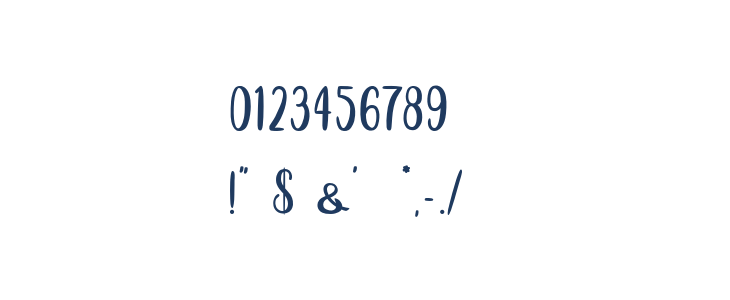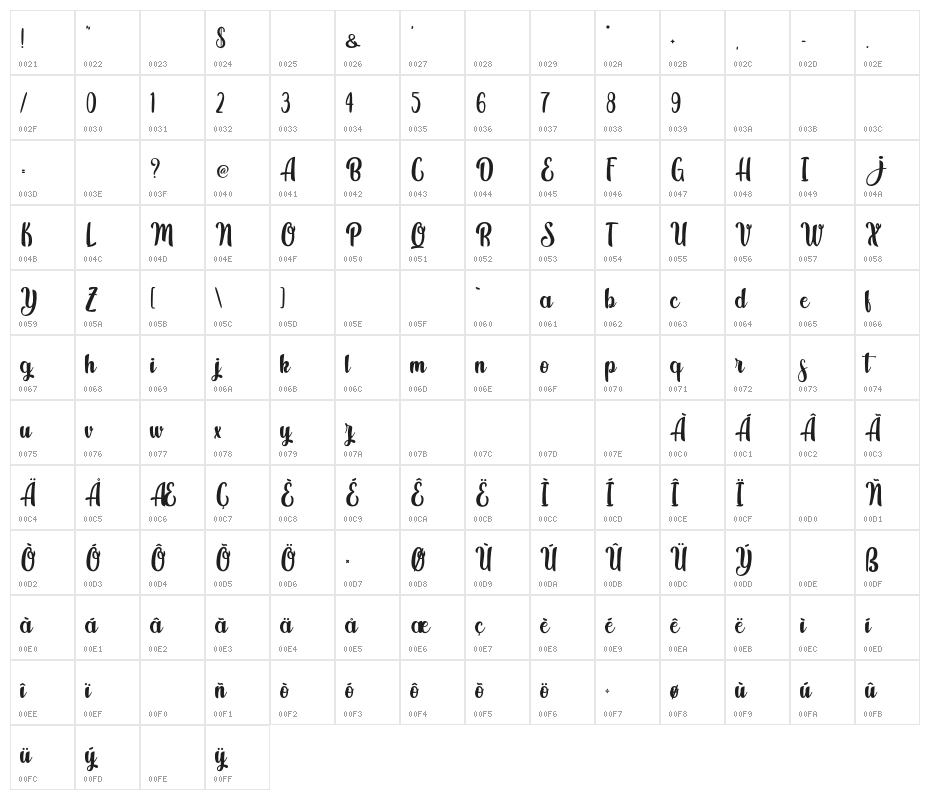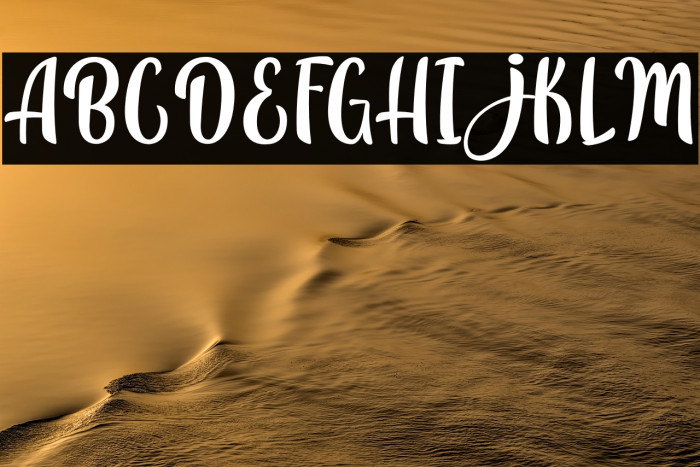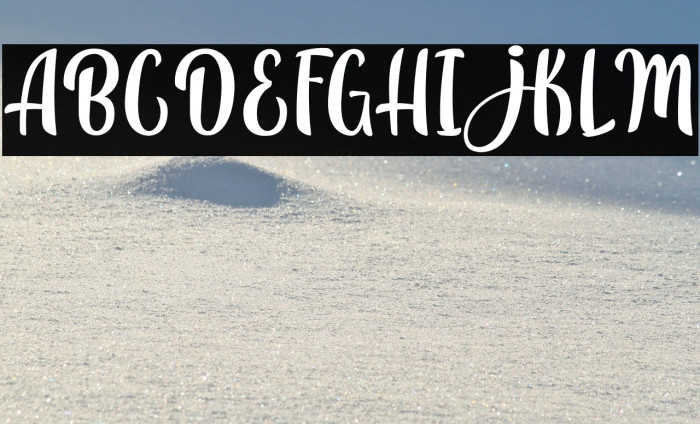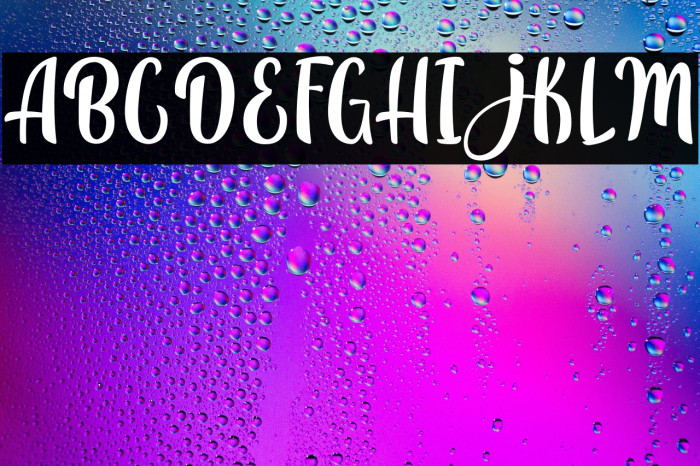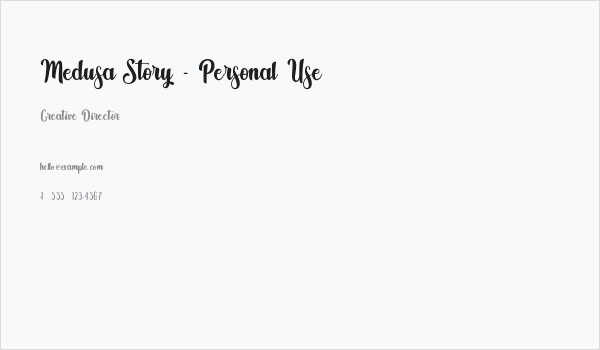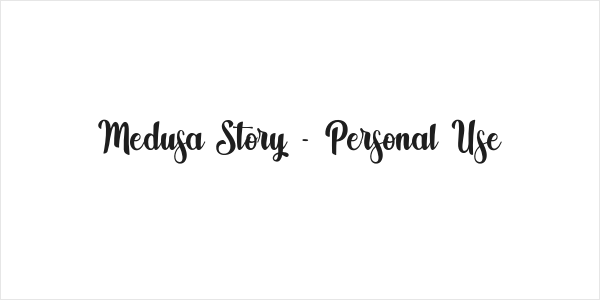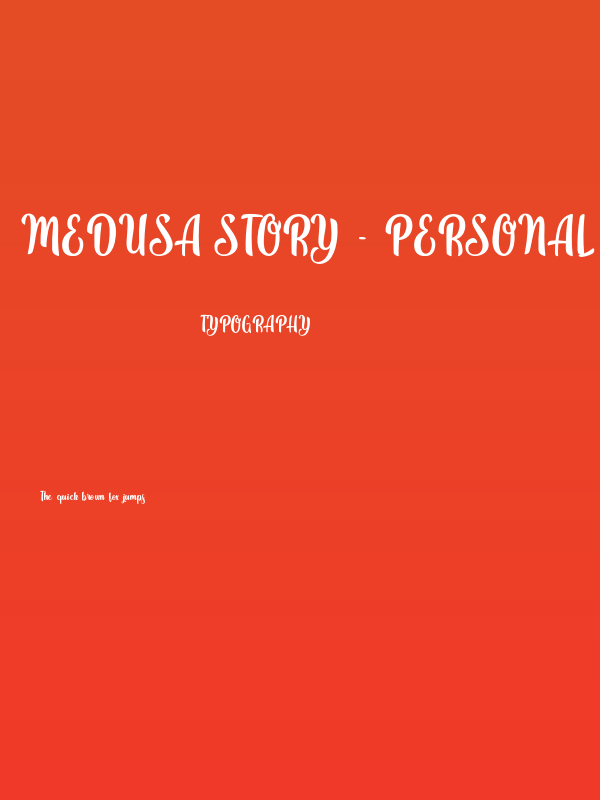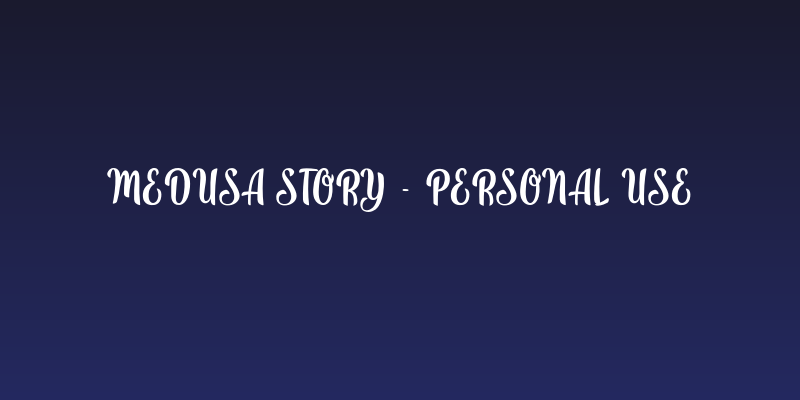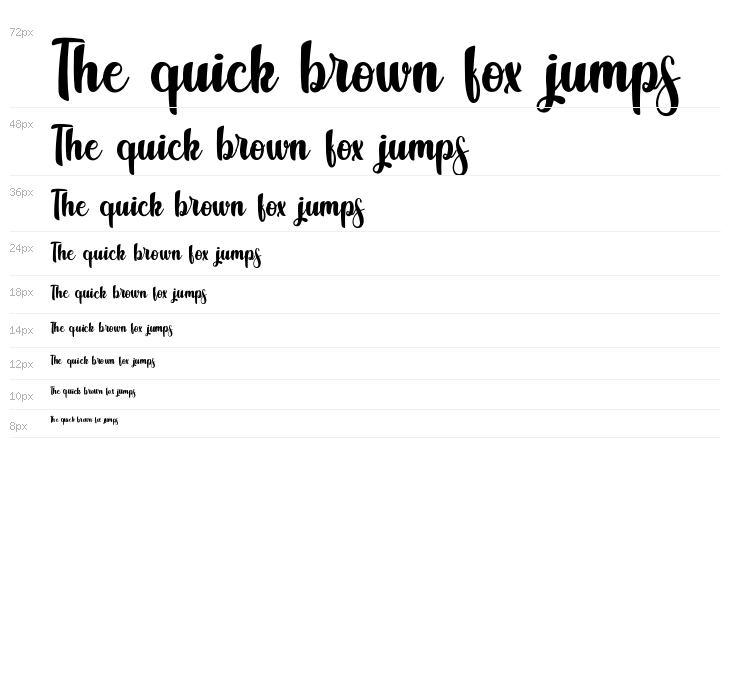
Medusa Story - Personal Use Font
Medusa Story - Personal Use Description
This font features a bold and expressive script style with a modern flair. The uppercase letters are characterized by their sweeping curves and dynamic strokes, giving them a sense of movement and elegance. The lowercase letters maintain a cohesive flow, with some letters featuring unique loops and flourishes that add personality. The numerals are clear and bold, ensuring readability. Special characters are designed to complement the overall aesthetic, maintaining the same bold and decorative style. This font is ideal for projects that require a touch of sophistication and creativity.
| Proposed Projects | Ideal for branding, invitations, posters, and social media graphics. |